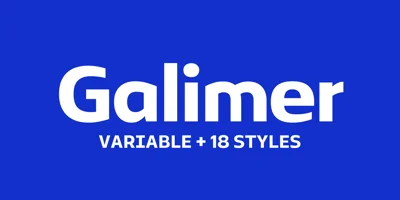
Galimer Font is perfect for contemporary business branding, modern startup logos, sleek tech company identities, innovative product packaging, cutting-edge website designs, progressive marketing campaigns, forward-thinking corporate presentations, dynamic social media graphics, modern architectural signage, and versatile brand applications that require contemporary sophistication and professional adaptability.
This font is exciting because it masterfully balances modern innovation with timeless professionalism, featuring carefully engineered letterforms that adapt seamlessly across diverse applications while maintaining distinctive character and contemporary appeal. Galimer Font offers the perfect solution for brands seeking a versatile typeface that communicates both reliability and forward-thinking vision in today's dynamic marketplace.
Galimer Font family includes Regular, Bold, Light, Medium, Thin, Black, Italic, and Condensed versions, plus comprehensive symbol sets, technical icons, modern ornaments, and extensive multilingual character support that provide complete typographic solutions for international brands and global business communications.
For versatile modern branding and business applications, Galimer Font delivers outstanding adaptability and contemporary appeal. The font's balanced letterforms and professional character make it perfect for startups, technology companies, and modern businesses seeking to communicate innovation, reliability, and market leadership. Its clean, sophisticated design ensures excellent brand recognition across all platforms and touchpoints. The character set includes optimized numerals and business symbols specifically designed for modern digital applications and professional communications. Professional designers appreciate its exceptional versatility and readability across diverse media while maintaining distinctive personality that differentiates brands in competitive markets, making it essential for companies that want to project contemporary professionalism, innovative thinking, and the dynamic energy required for success in today's rapidly evolving business landscape.